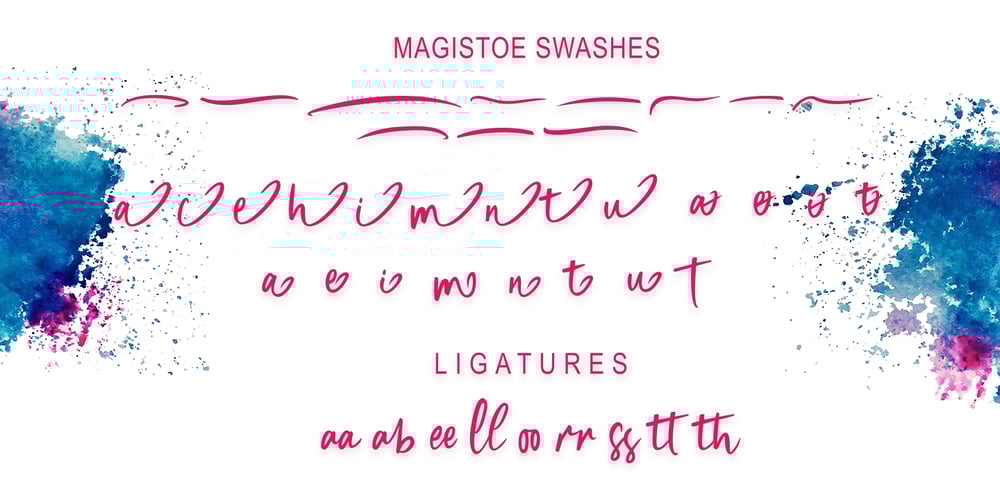
Magistoe
Magistoe font
Magistoe Font Family was designed by Fajriadi and published by Masinong Studio. Magistoe contains 1 styles and family package options. Magistoe script a new fresh & modern script with a handmade calligraphy style, decorative characters and a dancing baseline! So beautiful on invitation like greeting cards, branding materials, business cards, quotes, posters, and more. Magistoe script come with 274+ glyphs. The alternative characters were divided into several Open Type features such as Swash, Alternates Set. The Open Type features can be accessed by using Open Type savvy programs such as Adobe Illustrator, Adobe InDesign, Adobe Photoshop Corel Draw X version, And Microsoft Word. And this Font has given PUA unicode (specially coded fonts). so that all the alternate characters can easily be accessed in full by a craftsman or designer. To enable the OpenType Stylistic alternates, you need a program that supports OpenType features such as Adobe Illustrator CS, Adobe Indesign & CorelDraw X6-X7. There are additional ways to access alternates, using Character Map (Windows), Nexus Font (Windows), Font Book (Mac) or a software program such as PopChar (for Windows and Mac). For use in office word, you all can read the following article to access alternate glyphs: http://www.magpiepaperworks.com/blog/using-opentype-fonts-in-microsoft-word/ If you have any question, don’t hesitate to contact me by email masinong.studio@gmail.com Thanks and happy designing 🙂 Thank You for purchase!